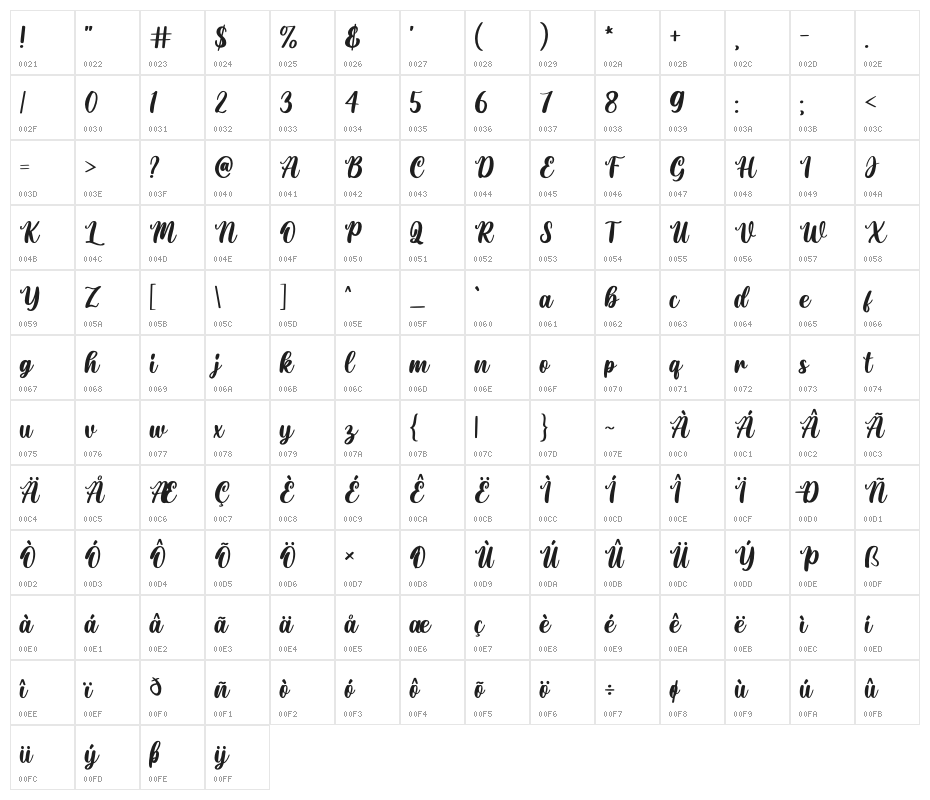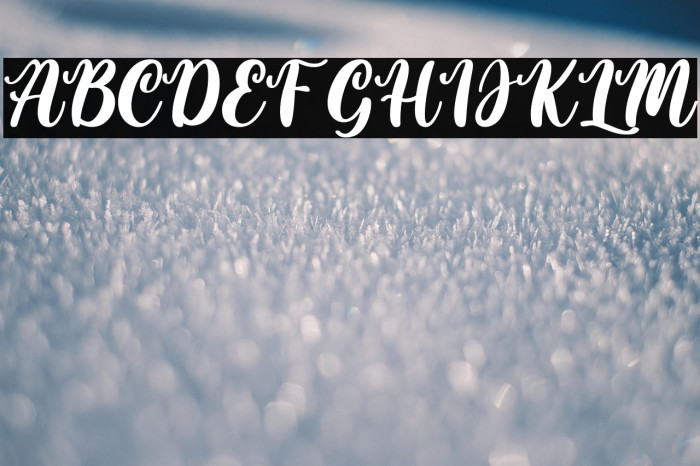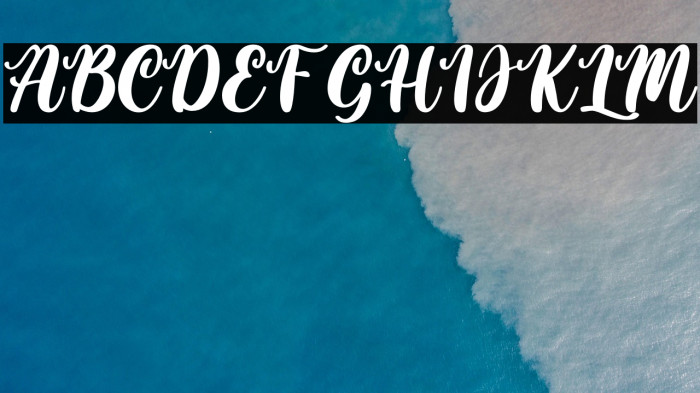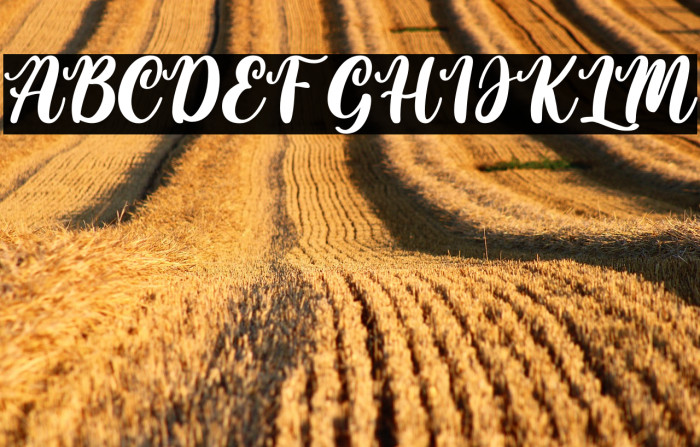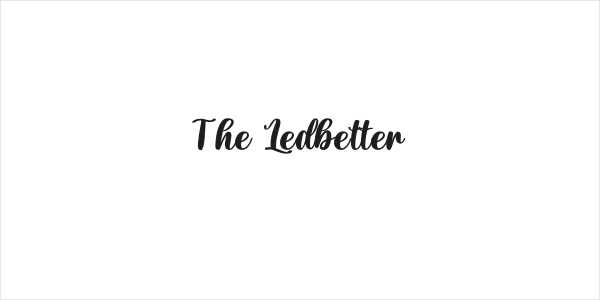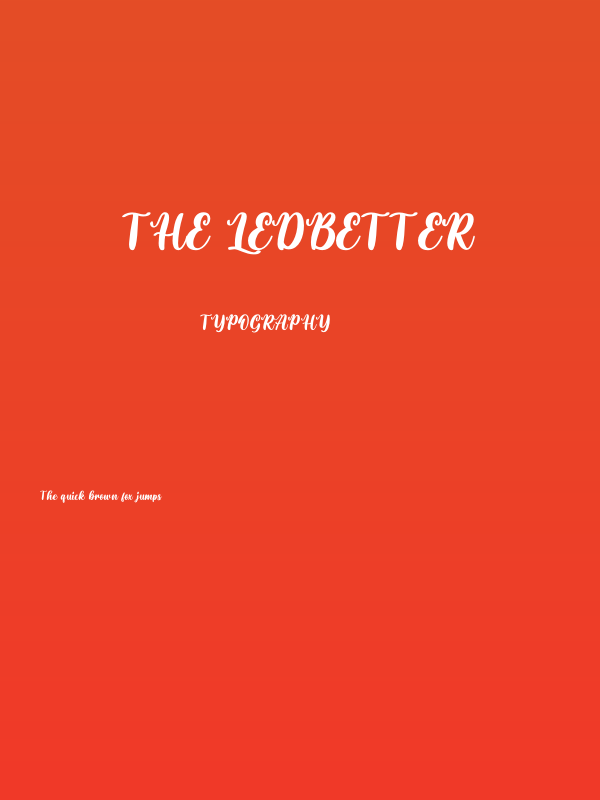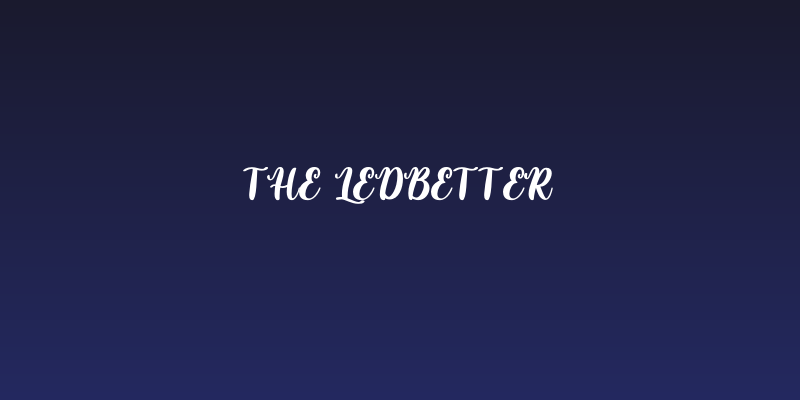
The Ledbetter Font
The Ledbetter Description
This font features a bold and flowing script style, characterized by its elegant and smooth curves. The uppercase letters are slightly more ornate, with sweeping lines and a sense of movement that adds a touch of sophistication. The lowercase letters maintain a consistent flow, making them highly legible while still retaining a decorative flair. The numerals are bold and clear, matching the overall style of the alphabet. Special characters are designed with the same attention to detail, ensuring they integrate seamlessly with the rest of the font. This font is ideal for projects that require a personal touch, such as invitations, branding, and decorative headlines.